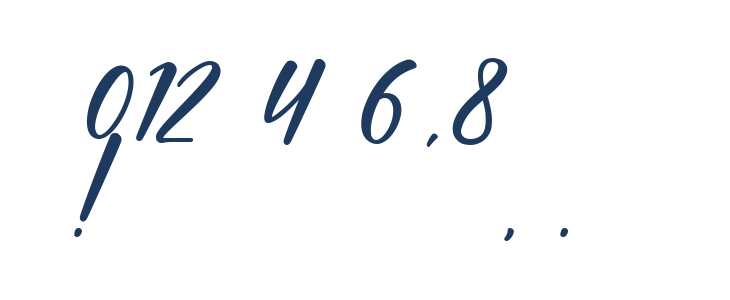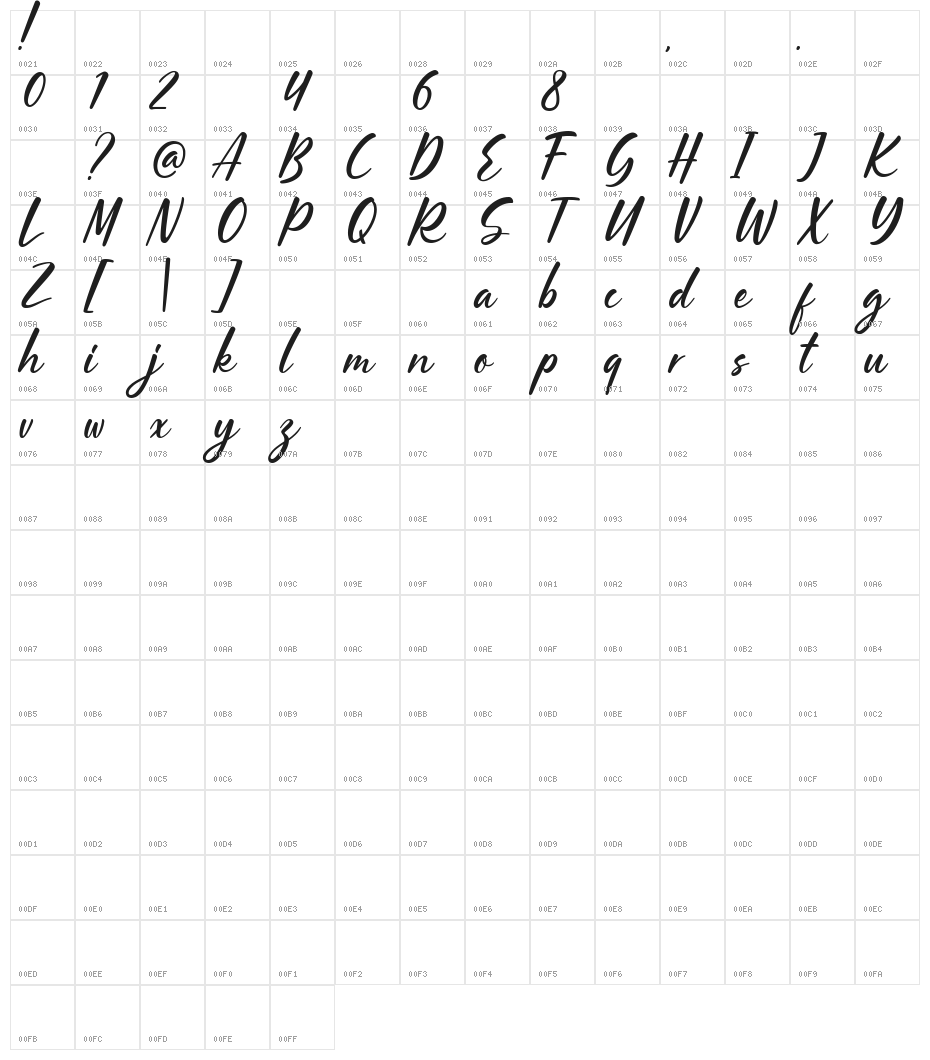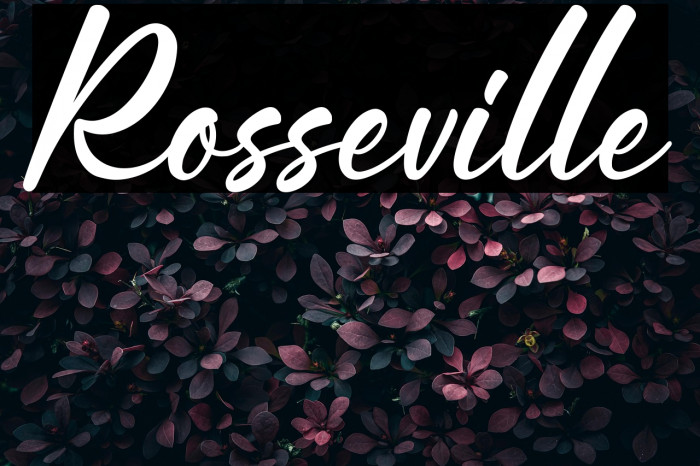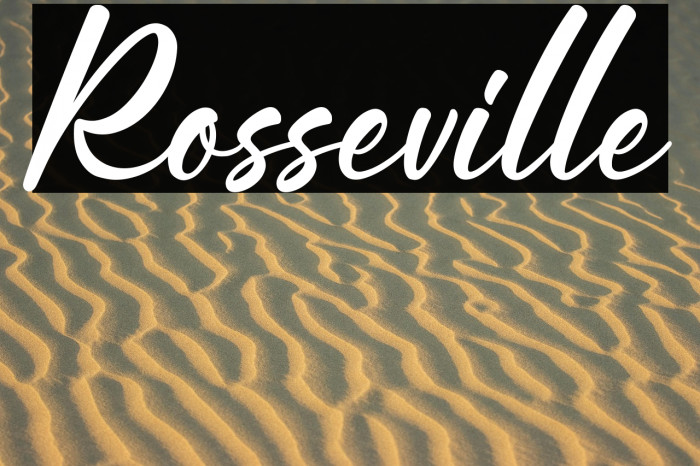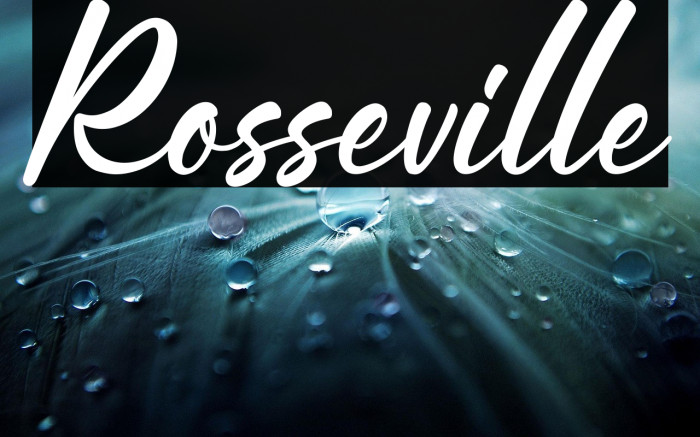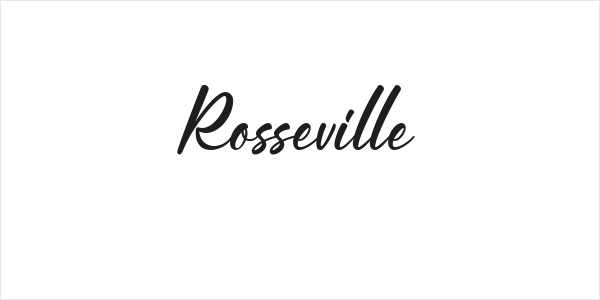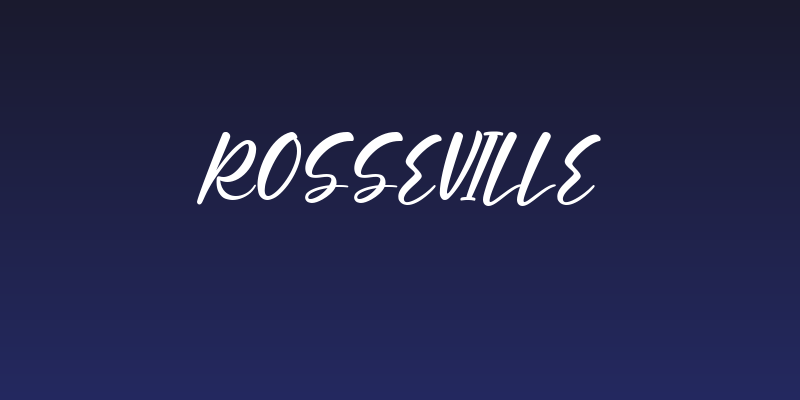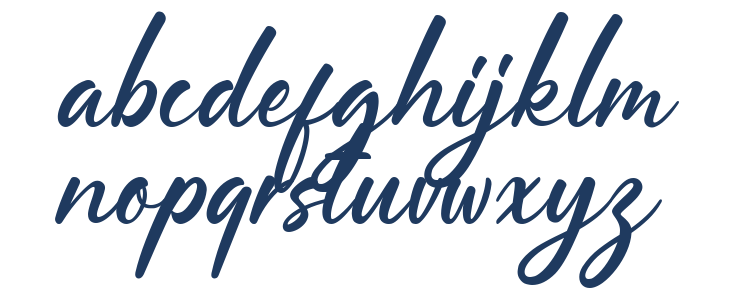
Rosseville Font
Rosseville Description
This font features a dynamic and flowing script style, characterized by its elegant and fluid strokes. The uppercase letters are bold and slightly slanted, giving a sense of movement and grace. The lowercase letters maintain a consistent flow, with smooth connections between characters, enhancing its cursive appeal. The numerals are distinct and maintain the same fluidity, making them easily readable. Special characters are integrated seamlessly, maintaining the overall aesthetic. The font's design is both modern and classic, suitable for a variety of creative applications.
| Proposed Projects | Ideal for wedding invitations, branding, logo design, and elegant stationery. |